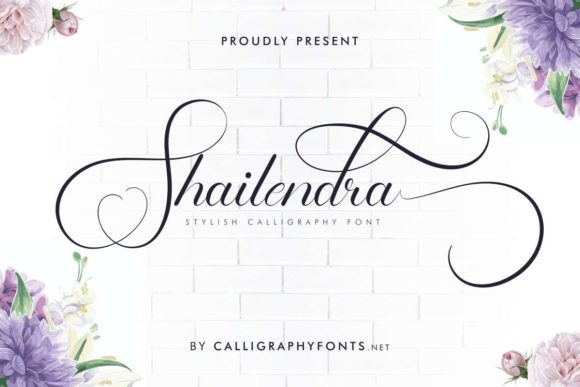
**Introducing Shailendra: The Enchanting Script Font for Your Dreamy Wedding**
Prepare to be smitten with Shailendra, a breathtaking handwritten font that will transform your wedding day into an unforgettable celebration. With its graceful curves and delicate strokes, this font will add a touch of elegance and romance to every detail of your special day.
Imagine your wedding invitations adorned with Shailendra's graceful letters, inviting guests to share in your joy. Your seating chart will become a work of art, guiding your loved ones to their designated spots with sophistication and style. And as you walk down the aisle, the vows you exchange will be etched in Shailendra's enchanting script, creating a timeless keepsake of your eternal love.
But the magic of Shailendra extends far beyond wedding festivities. Its incredibly versatile nature makes it the perfect companion for any project that calls for a touch of elegance and whimsy. From heartfelt letters and enchanting stories to stunning social media posts and captivating branding, Shailendra will effortlessly elevate your creations to new heights.
With its full PUA encoding, unleashing Shailendra's full potential is effortless. Access a world of glyphs and swashes with ease, empowering you to create designs that truly stand out.
Indulge in Shailendra's enchanting charm today and let it work its magic on your wedding day and countless unforgettable moments to come. It's more than just a font; it's an artistic masterpiece that will leave a lasting impression on all who behold it.
**Fall head over heels for Shailendra, the font that will add a touch of magic to every special occasion.**